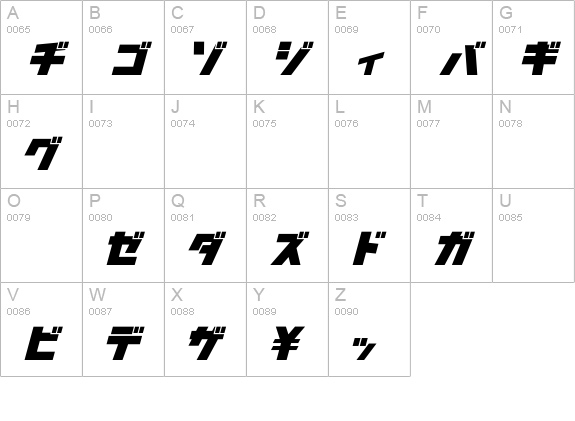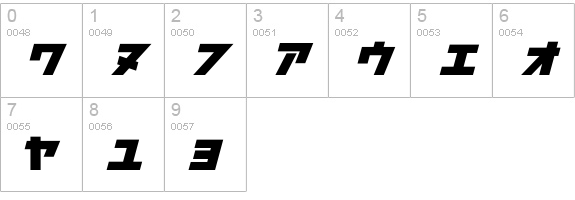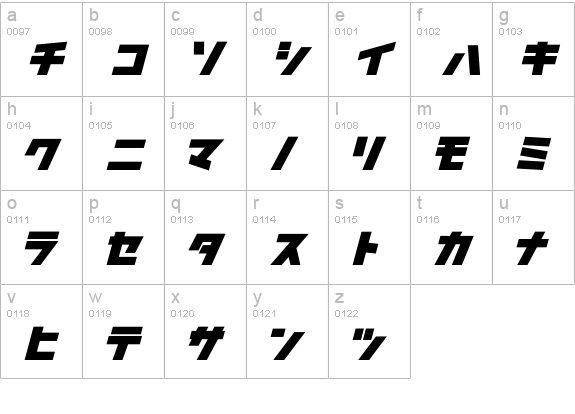
SsTaitohSquare-Katakana Font Details
SsTaitohSquare-Katakana font is a visually striking and modern typeface that perfectly captures the essence of Japanese culture. With its clean lines and sharp edges, this font is ideal for any design project that requires a bold and distinctive look. What sets SsTaitohSquare-Katakana font apart is its versatility. It can be used for a variety of purposes, from headlines and logos to posters and branding materials. This font is particularly well-suited for projects related to technology, gaming, or any other industry that demands a futuristic aesthetic. One of the most appealing aspects of this font is that it is free. Yes, you read that right! SsTaitohSquare-Katakana font is freely available to download at FontsMarket.com. This means that you can enhance your design projects without worrying about any additional costs. Whether you are a professional designer or an amateur enthusiast, SsTaitohSquare-Katakana font is a must-have in your font collection. Its unique style and accessibility make it a valuable asset for any creative endeavor. So why wait? Head over to FontsMarket.com and get your hands on this incredible font today!